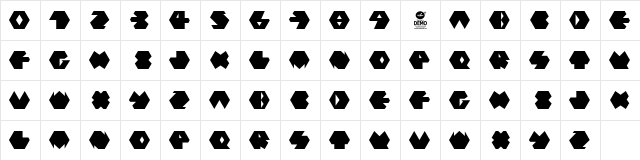
PolyFont Black PolyFont
Design Context for PolyFont Black Typeface
PolyFont Black is a composed and adaptable typeface that performs quietly and consistently across a wide range of design contexts.